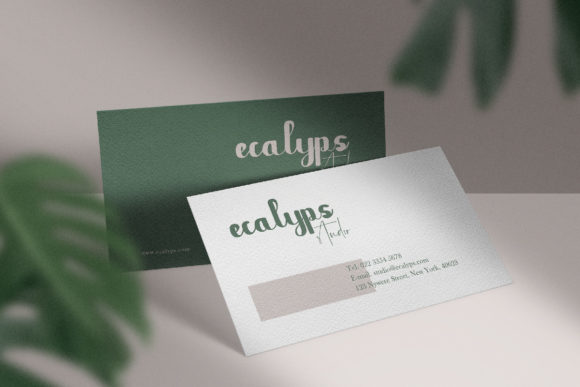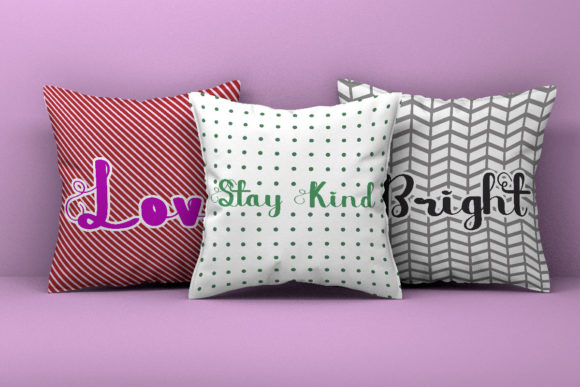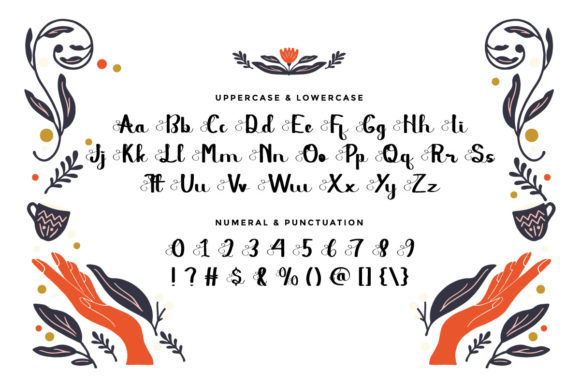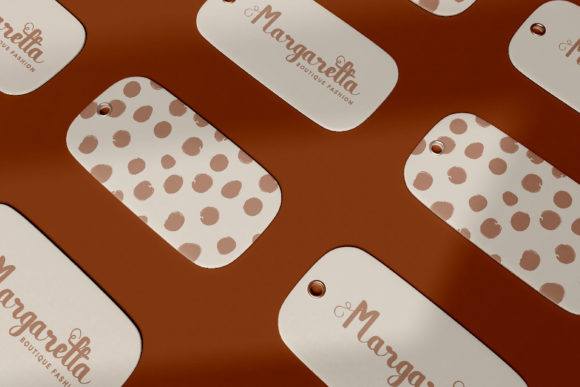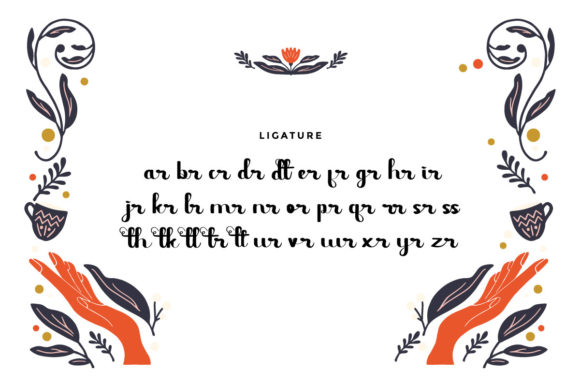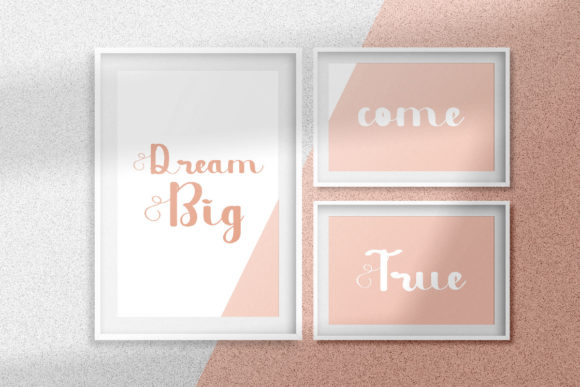
Introducing Happy Smile Font: Elevate Your Typography with a Unique Handwritten Style
Are you tired of using the same old fonts for your designs? Do you want to add a personal touch to your typography? Look no further than Happy Smile Font, a fun and stylish handwritten font that’s perfect for creatives and designers. In this article, we’ll dive into the features and benefits of Happy Smile Font, and explore how it can elevate your writing and designs.
A Unique Lettering Style
Happy Smile Font is a carefully crafted font with a unique lettering style that’s designed to mimic natural handwriting. Each character is meticulously created to ensure that it looks as close to handwriting as possible, giving your text a personal and exclusive feel. The font’s unique style is perfect for adding a touch of personality to your designs, whether it’s for a wedding invitation, a social media post, or a branding campaign.
Special Tails for a Unique Look
One of the standout features of Happy Smile Font is its special tails on each character. These tails add a touch of elegance and sophistication to your text, making it stand out from the crowd. Whether you’re using the font for a formal or informal design, the special tails will add a unique and exclusive touch that’s sure to impress.
Perfect for a Variety of Designs
Happy Smile Font is a versatile font that’s perfect for a wide range of designs, including:
- Weddings and engagement events: Add a personal touch to your wedding invitations, programs, and other stationery with Happy Smile Font.
- Branding: Use Happy Smile Font to create a unique and memorable brand identity that’s sure to stand out.
- Invitations: Whether it’s a birthday party, baby shower, or graduation, Happy Smile Font is perfect for creating custom invitations that reflect your personality.
- Florist, hair stylist, makeup artist, and event organizer: Use Happy Smile Font to add a touch of elegance and sophistication to your business cards, brochures, and other marketing materials.
- Movie, music, and festival promotions: Happy Smile Font is perfect for creating eye-catching posters, flyers, and social media graphics that promote your event.
- Social media: Use Happy Smile Font to add a personal touch to your social media posts and stories.
Happy Smile Font is PUA encoded, which means you can access all of the glyphs and swashes with ease. This makes it easy to customize your text and add special touches that make your design stand out.
Why Choose Happy Smile Font?
So why choose Happy Smile Font over other fonts? Here are just a few reasons:
- Unique and exclusive style: Happy Smile Font has a one-of-a-kind style that’s sure to make your designs stand out.
- High-quality craftsmanship: Each character is carefully crafted to ensure that it looks as close to natural handwriting as possible.
- Versatility: Happy Smile Font is perfect for a wide range of designs, from formal to informal.
- Easy to use: With PUA encoding, you can access all of the glyphs and swashes with ease.
If you’re looking for a unique and stylish font that can elevate your typography, look no further than Happy Smile Font. With its carefully crafted lettering style, special tails, and PUA encoding, Happy Smile Font is perfect for designers and crafters who want to add a personal touch to their designs. Whether you’re working on a wedding invitation, a branding campaign, or a social media post, Happy Smile Font is sure to make your text stand out.